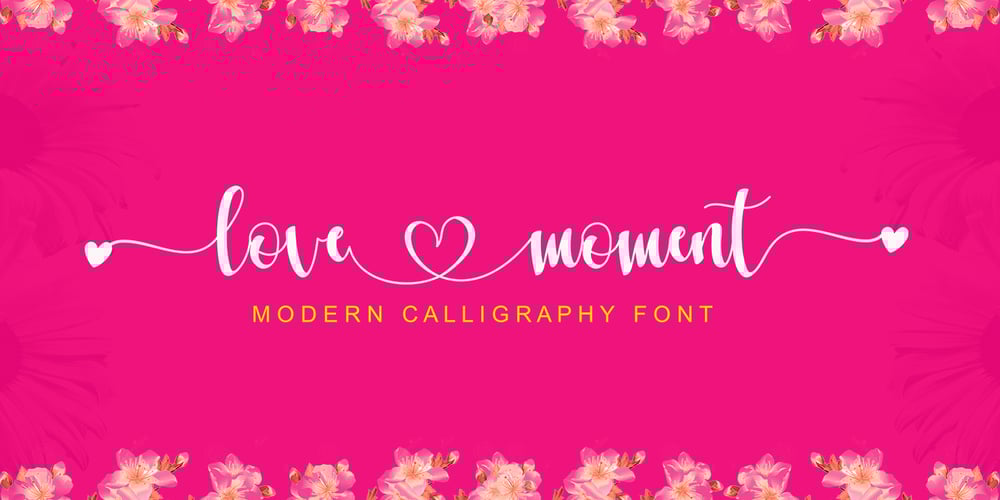
Love Moment Font Family was designed by khaidir and published by Gatype. Love Moment contains 1 styles and family package options. Love moment is a pretty script perfect for branding, wedding invitations, and any other romantic project. you need a program that supports Adobe Illustrator CS, Adobe Indesign & CorelDraw X6-X7, Microsoft Word 2010 or a later version.How to access all alternative characters using Adobe Illustrator:https://www.youtube.com/watch?v=XzwjMkbB-wQ Love moment is coded with PUA Unicode, which allows full access to all additional characters without having to design any special software. Mac users can use Font Book, and Windows users can use Character Map to view and copy any additional characters for pasting into your favorite text editor / application.How to access all alternative characters, using the Windows Character Map with Photoshop:https://www.youtube.com/watch?v=Go9vacoYmBw